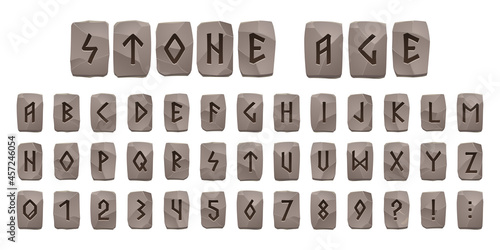
Viking runes stone age alphabet, celtic font with ancient runic signs on grey rock pieces. Abc nordic style scandinavian letters, digits and punctuation signs, futark type symbols, Cartoon vector set